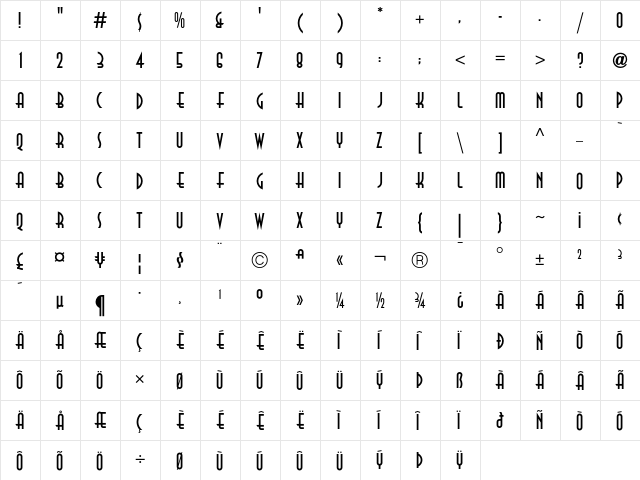
AnnaICG Regular Font Preview
AnnaICG Regular
Design Context for AnnaICG Typeface
AnnaICG is a composed and adaptable typeface that performs quietly and consistently across a wide range of design contexts.